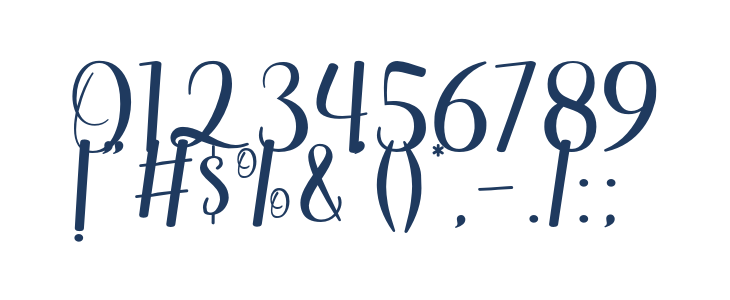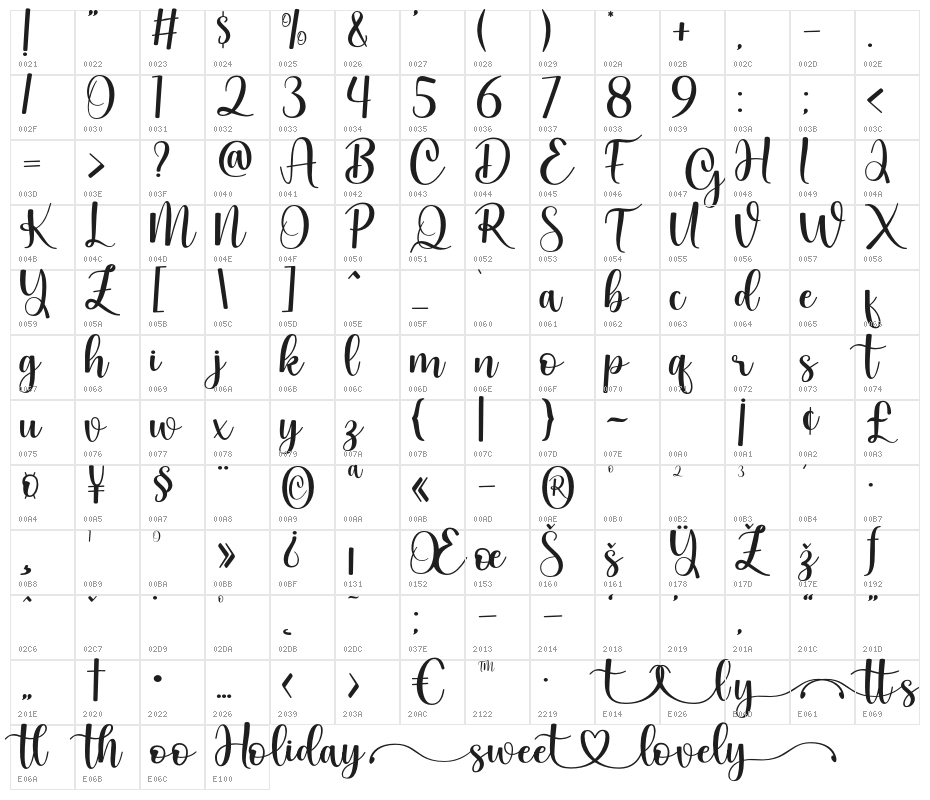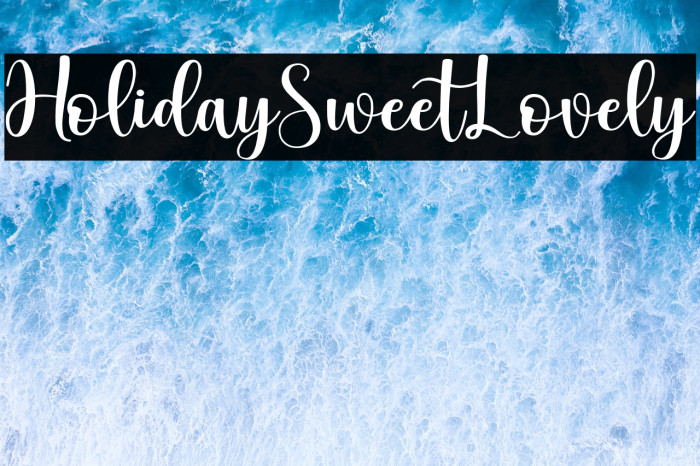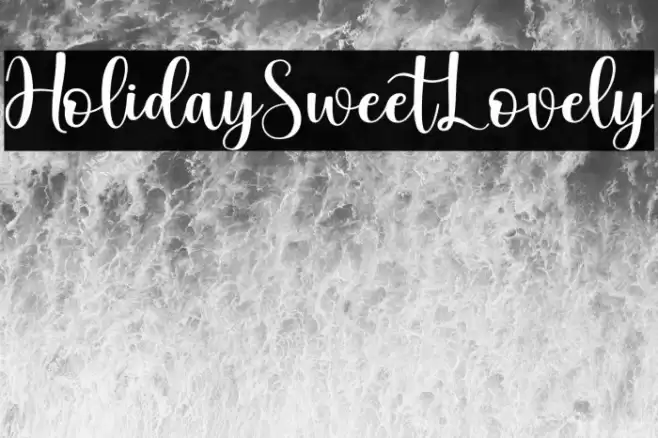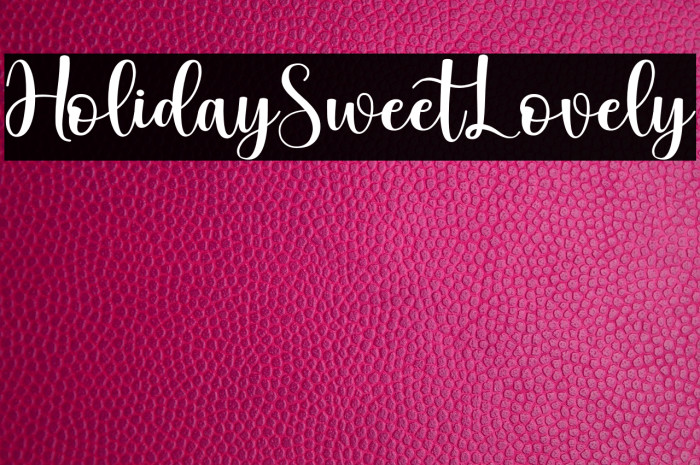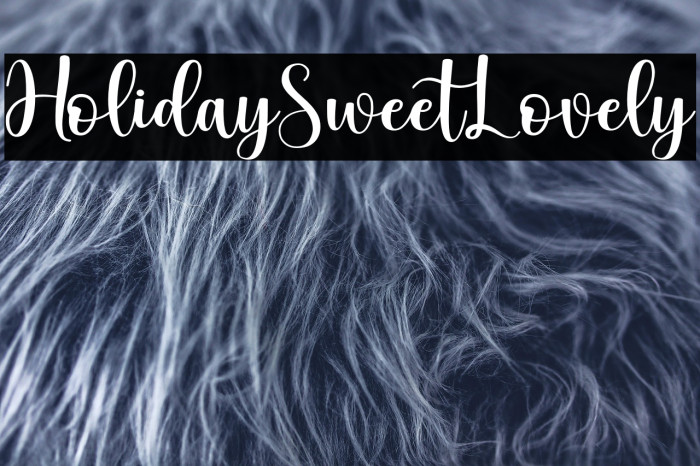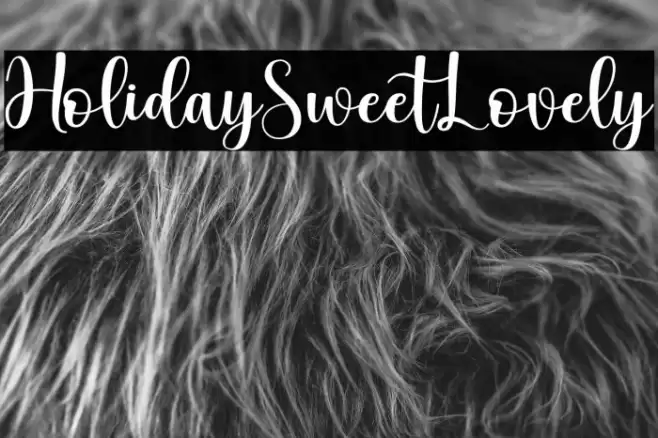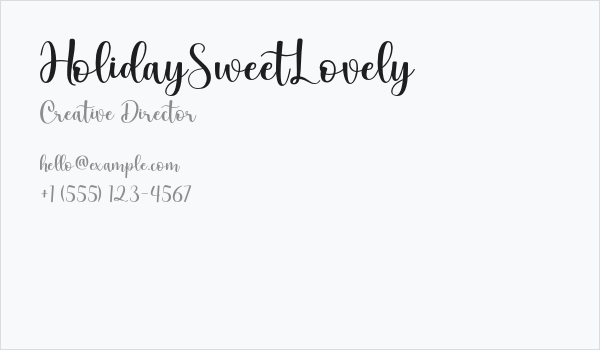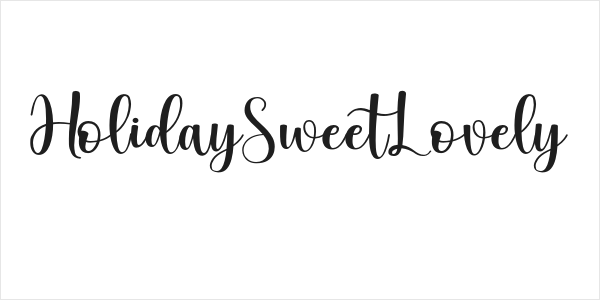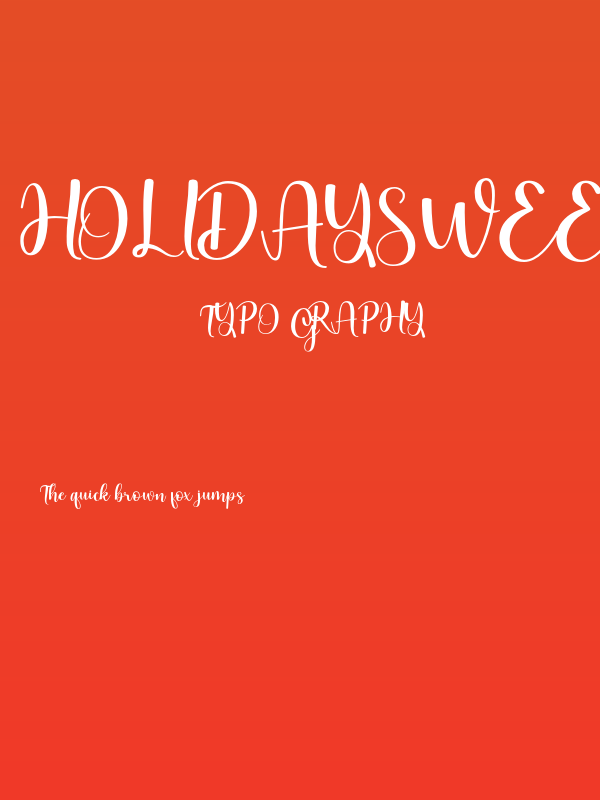
HolidaySweetLovely Font
HolidaySweetLovely Description
This font features a playful and elegant script style with a handwritten appearance. The uppercase letters are characterized by their flowing, cursive lines and occasional flourishes, giving them a whimsical and decorative feel. The lowercase letters maintain a consistent style, with smooth curves and loops that enhance the font's overall fluidity. Numbers are designed to match the script style, with a slight slant and rounded edges. Special characters are included, maintaining the same playful and elegant aesthetic. This font is perfect for adding a personal touch to any project, combining readability with artistic flair.
Use CaseLogos, Headlines, Invitations
Proposed ProjectsIdeal for wedding invitations, greeting cards, branding, and social media graphics.